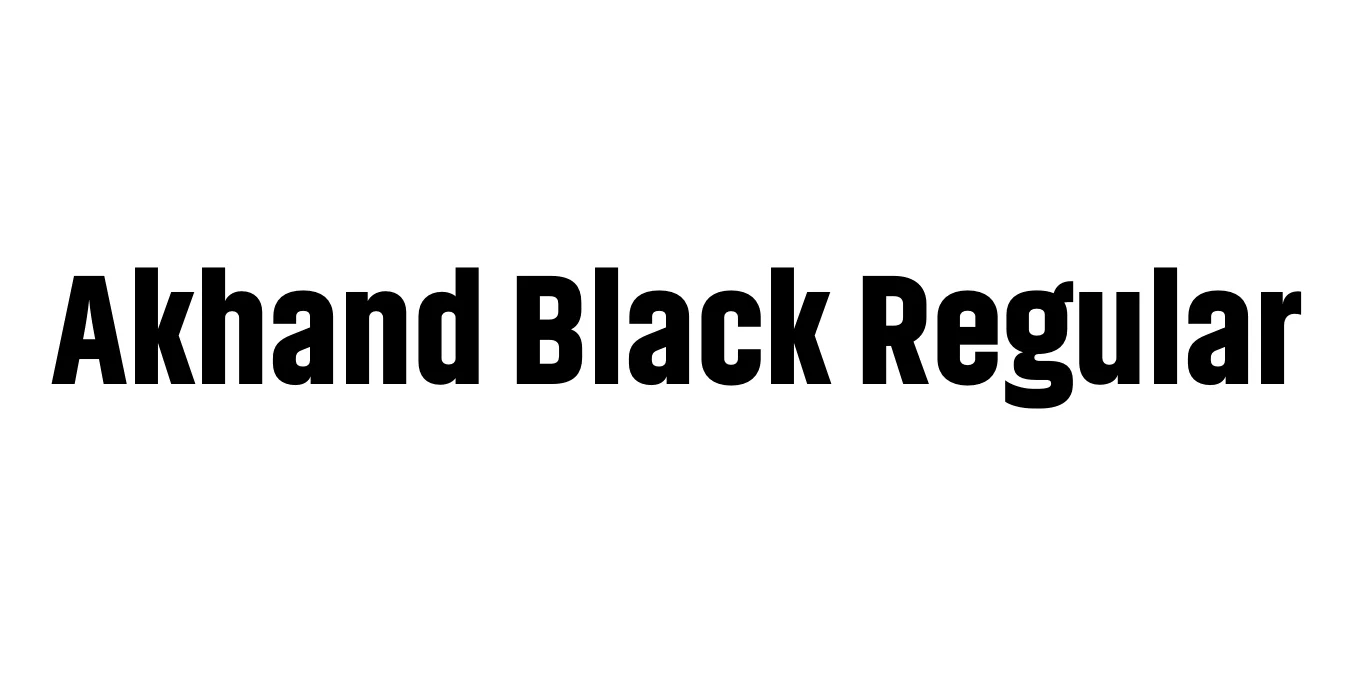
Akhand Black Regular
Designed by Satya Rajpurohit
Akhand Black Regular is a powerful member of the Akhand superfamily, designed by Satya Rajpurohit and published by the Indian Type Foundry. It features a modular, compact design with flat endings and narrow proportions, making it an ideal choice for high-impact visual communication. The font is built on a rigid grid, which gives it a modern, architectural feel while maintaining excellent legibility even in its heaviest weights.
The Akhand family was specifically developed to meet the needs of display typography in both digital and print media. Its clean lines and robust structure have made it a popular choice for corporate identities, editorial headlines, and sports branding. As a versatile sans-serif, it bridges the gap between industrial aesthetics and contemporary design, providing a solid foundation for bold messaging.
Akhand Black Regular Best Uses
Perfect for creating strong, authoritative logos and corporate identities.
Ideal for newspaper, magazine, and website headers that need to grab attention.
Works well for large-scale advertising and promotional posters.
Great for jersey numbers and high-energy sports graphics.